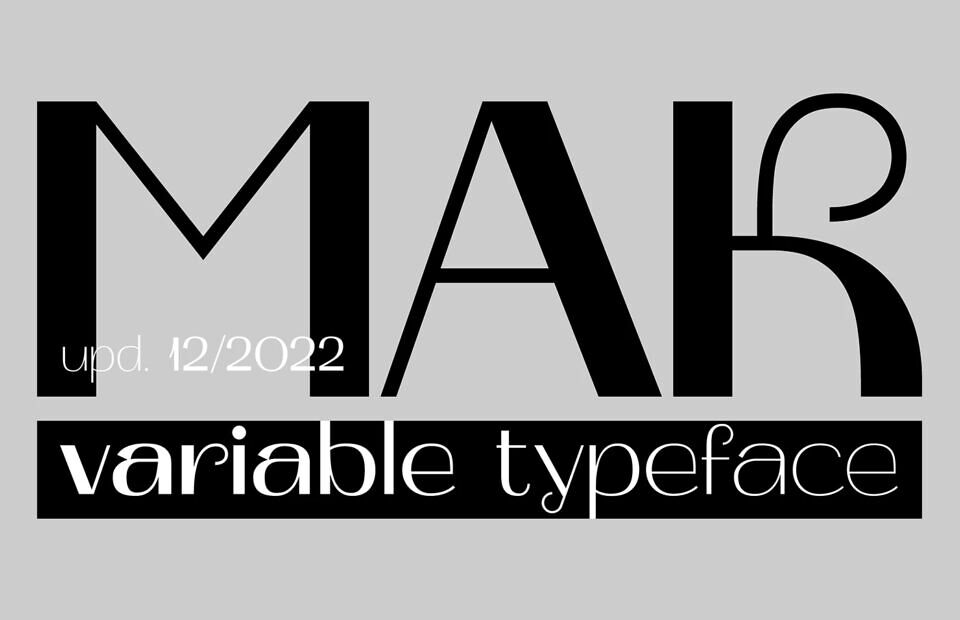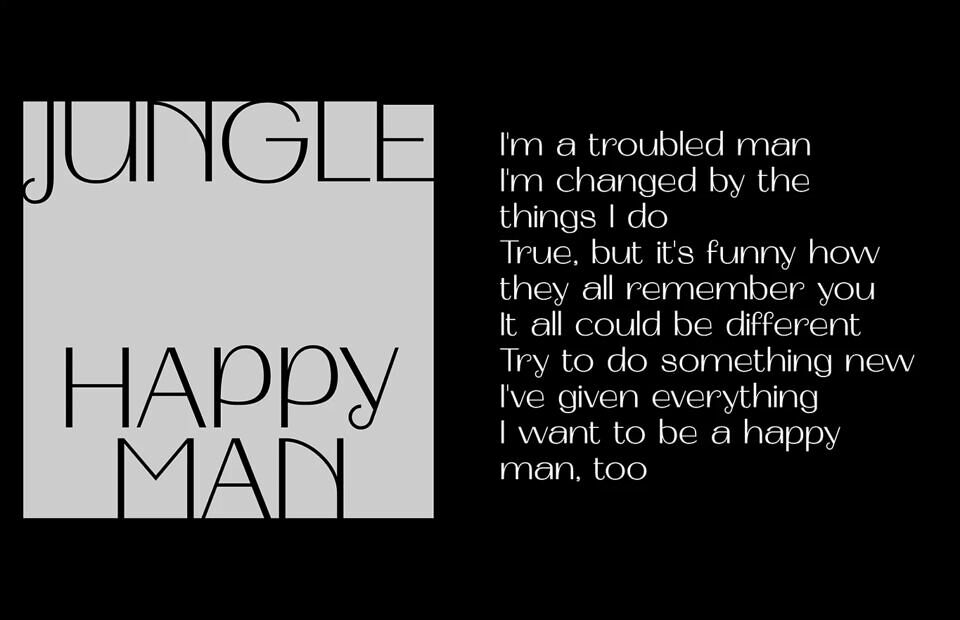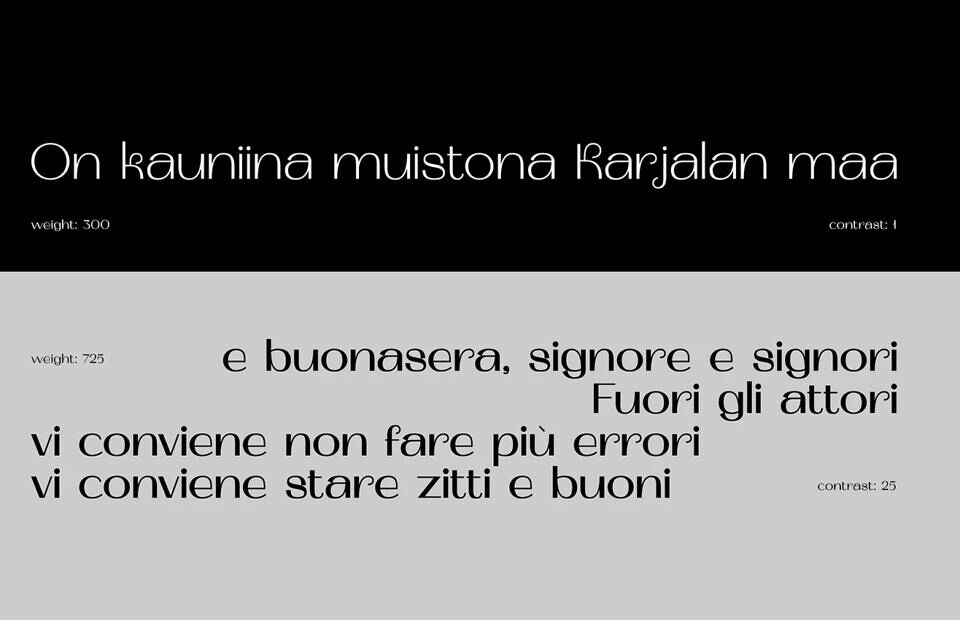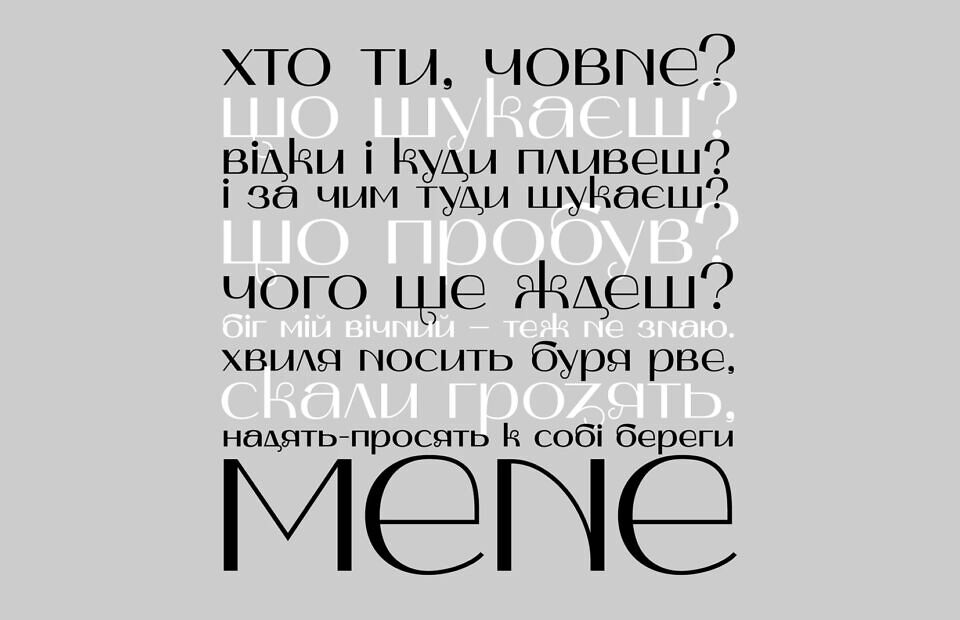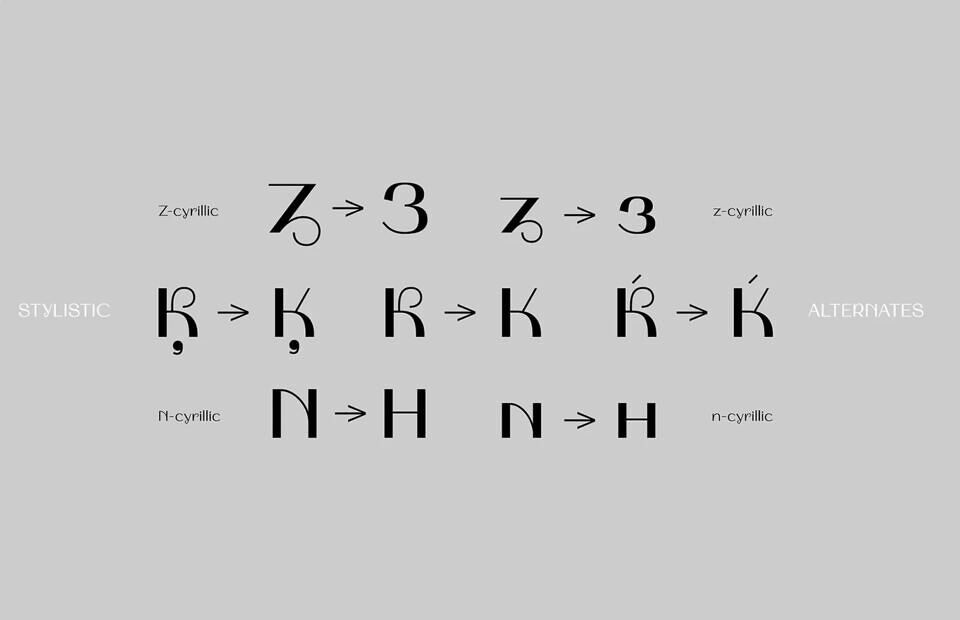
Mak Font
Mak is a display font with a Ukrainian feeling inspired by Ukrainian music. Customize weight and contrast to the smallest value to your needs with a variable version of Mak.
This is a big update of the first free two styles of Mak (SemiBold High & Black High) that were created in 2019 and become widespread among free display fonts. The big update wasn’t been only adding more weights and contrasts but also changing a lot of glyphs and adding new ones. Now Mak supports all Latin-based languages and European Cyrillic.
Experiments with historical forms, contrasts, and daring shapes to create a new image of Ukrainian Cyrillic and Latin based on it.